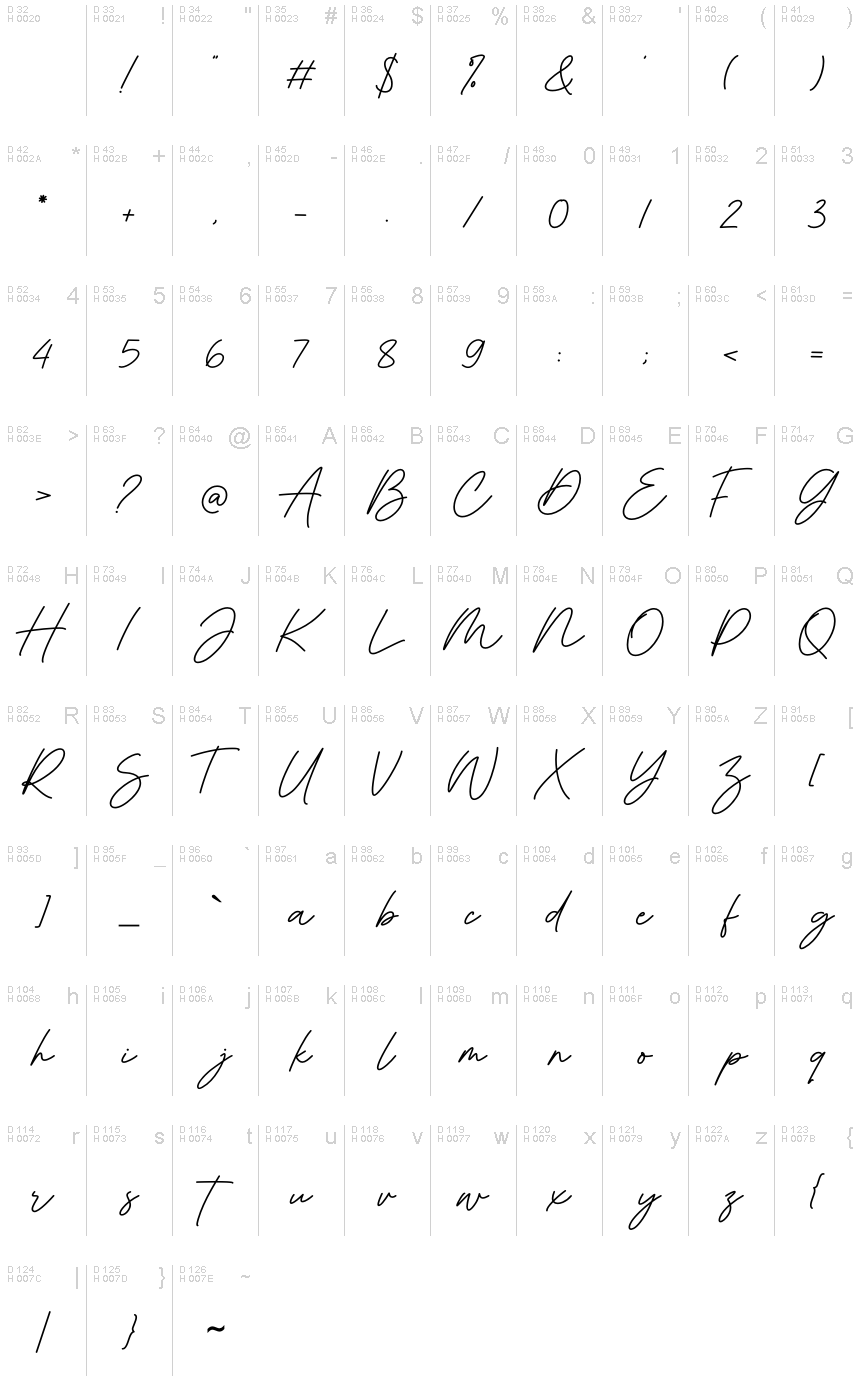
Monstera Jam Bold
Monstera Jam Bold font by Heinzel Std is a handwritten, signature-style font characterized by its elegant flowing lines and smooth curves. It embodies a cursive style with medium contrast that captures a casual mood and retains an authentic handwritten appearance. The connected lettering adds a touch of sophistication while maintaining an unpretentious design, making it versatile yet distinctive.
Monstera Jam Bold’s characteristics make it ideal for various applications such as labels, wedding invitations, social media graphics, planners, magazines headings or ads. It is also suitable for product packaging, wall photography to be used as overlay words over image postcards greeting cards.